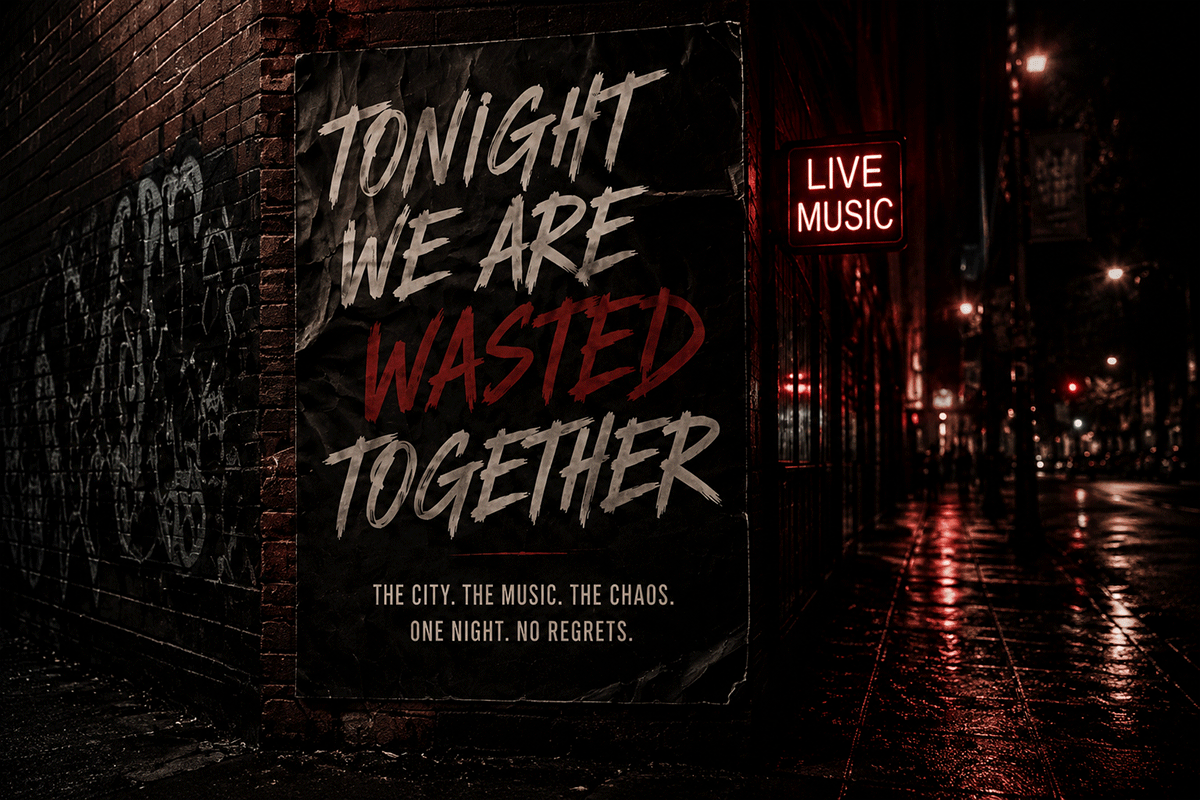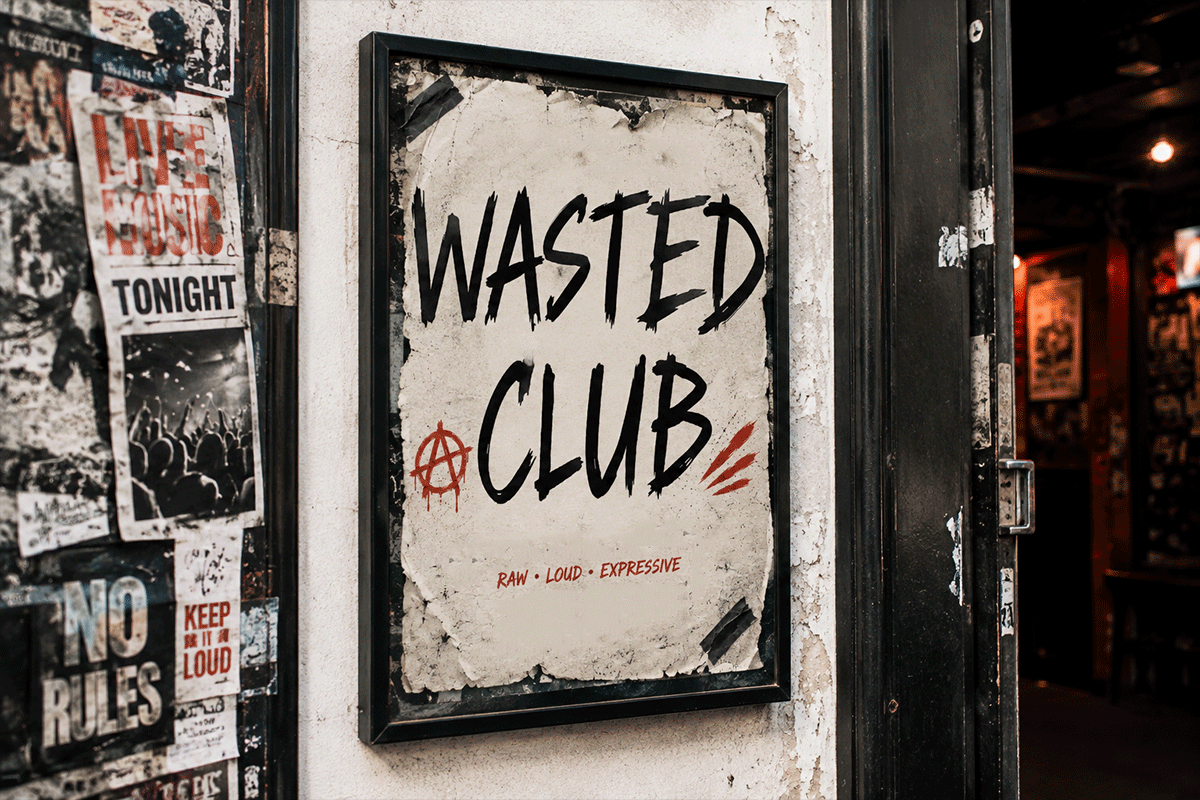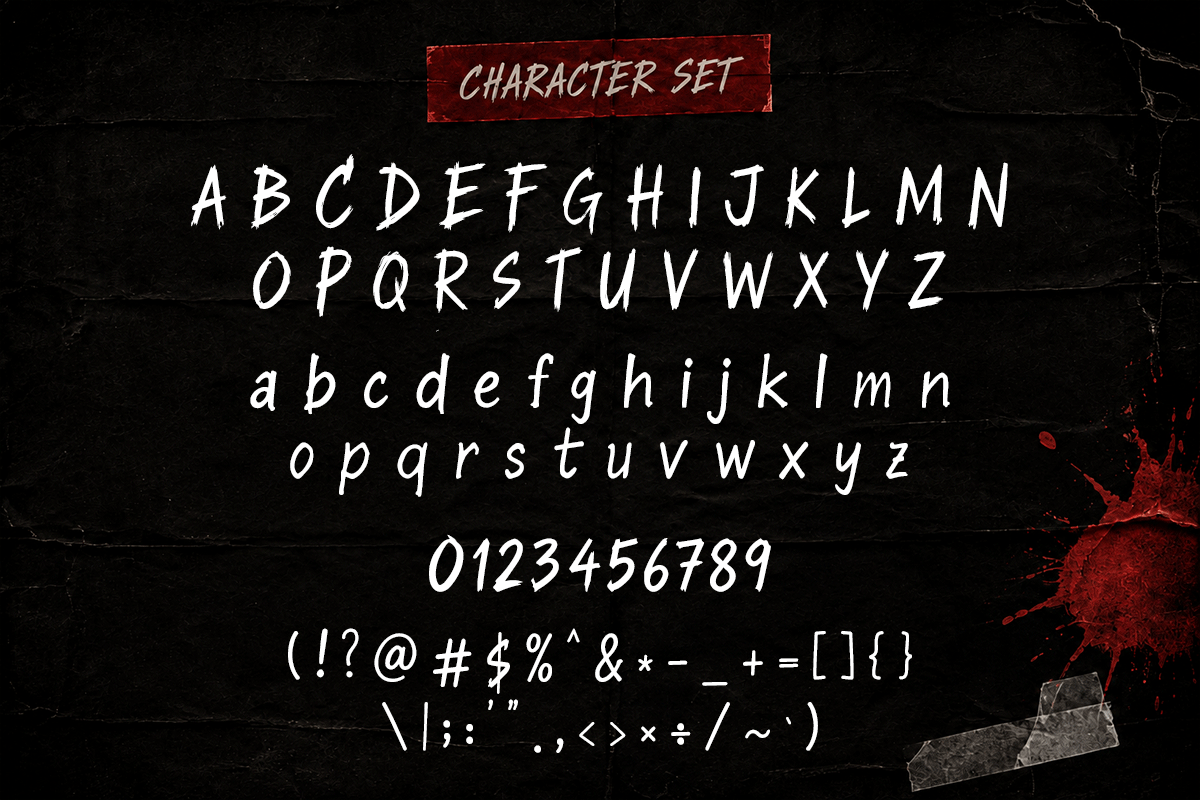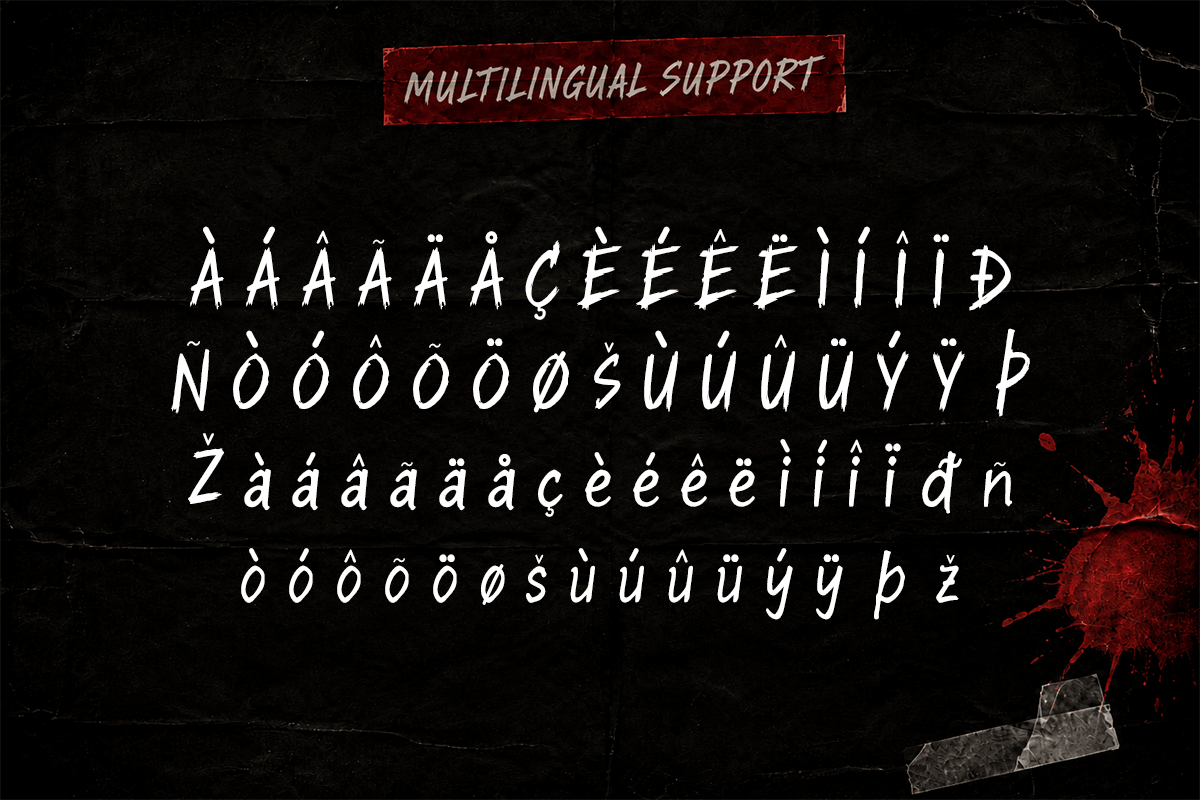
Wasted Club A Modern Brush Display Font
Wasted Club A Modern Brush Display Font is a raw brush display typeface packed with rough strokes, hand-painted texture, and an unapologetically rebellious personality. Its irregular letterforms and energetic brush construction create a loud, expressive look that feels spontaneous, gritty, and full of attitude.
Inspired by underground clubs, punk culture, nightlife posters, street art, grunge graphics, and alternative music scenes, Wasted Club A Modern Brush Display Font is perfect for album covers, concert posters, event flyers, streetwear, T-shirts, music branding, social media graphics, festival artwork, stickers, merchandise, movie titles, and bold editorial layouts.
The rough edges and dynamic movement make this typeface especially effective for oversized headlines and statement typography. It pairs naturally with dark photography, distressed textures, graffiti elements, and high-contrast compositions.
Wasted Club A Modern Brush Display Font is an ideal choice for designers looking for a typeface that feels raw, loud, rebellious, energetic, underground, and fearless.